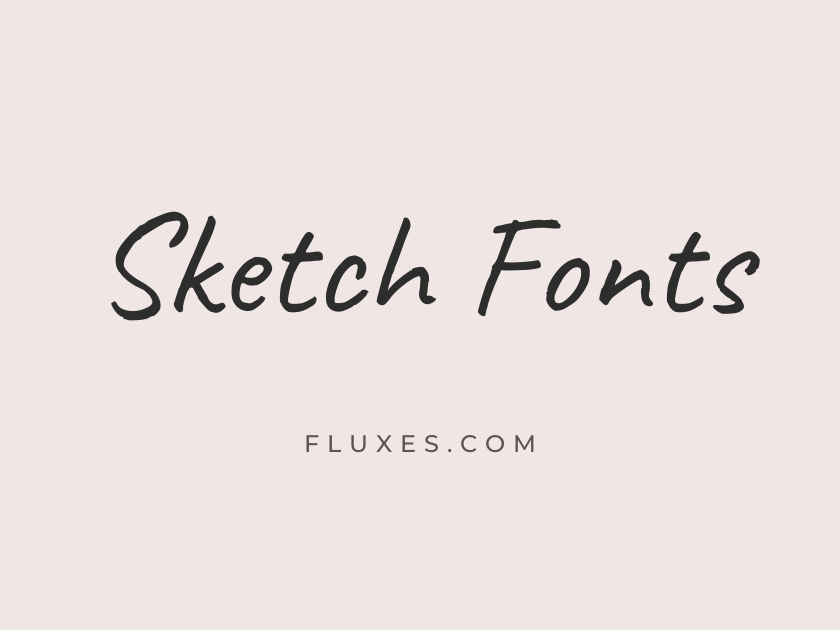
58 Best Sketch Fonts
Sketch fonts capture the energy of a pencil moving fast across paper: the imperfect baselines, the slight wobble in a curve, the sense that an idea was just caught before it disappeared. Designers reach for this style for sketchnote graphics, whiteboard-style explainer videos, kids’ book covers, packaging that wants to feel handmade, and any logo or poster that needs warmth over polish. The good news is that some of the richest hand-drawn, marker, and doodle lettering available anywhere lives on Google Fonts, free to download and use in commercial work.
The fonts here range from tidy handwriting to loose marker scrawl, from felt-tip bounce to fine ballpoint pen, so there is a match whether the project needs a whisper of informality or a full comic-strip shout.
Caveat is the default hand-drawn font for a reason: it reads like genuinely nice handwriting rather than a costume version of it. The letters lean and connect just enough to feel continuous, and the bolder weight holds up surprisingly well in headlines and pull quotes. It pairs cleanly with almost any grotesque sans for body copy, which is why it shows up constantly in branding for cafes, planners, and craft businesses.
Kalam has a rounder, slightly heavier hand than Caveat, closer to a felt marker than a ballpoint. It comes in three weights that all stay legible, making it one of the few sketch-style fonts flexible enough for both a heading and a longer caption.
Patrick Hand looks like the handwriting of someone who takes tidy classroom notes: rounded, even, easy to read at small sizes. It is a dependable choice when a project needs a friendly, informal voice without tipping into chaos.
Patrick Hand SC
This small-caps sibling of Patrick Hand swaps lowercase letters for evenly spaced capitals, which makes it handy for labels, tags, and diagram callouts where a full script would be too loud.
Modeled on the confident, slightly technical handwriting of an architect’s notes, this font is a natural fit for anything blueprint-adjacent: construction branding, DIY tutorials, sketch-style infographics. Its letterforms are upright and structured compared to looser scripts, so it reads as sketchy without feeling careless.
Bouncy, round, and a little childlike, Indie Flower brings warmth to greeting cards, kids’ content, and anything that wants to feel hand-lettered rather than typed. It gets muddy in long paragraphs, so it earns its keep best in short bursts.
This is the font for a thick felt-tip marker dragged across a whiteboard or a moving box. The strokes are heavy and confident, ideal for punchy headlines, sale signage, or any design that wants to shout in a casual, handmade way rather than a corporate one.
Caveat Brush
Take Caveat’s easy rhythm and thicken it with a brush-pen texture and this is the result: expressive, slightly rough-edged, great for titles on sketchnote graphics or hand-lettered social posts. It carries more personality than its thin-stroke cousin but keeps the same natural, unforced slant.
Nanum Brush Script
Nanum Brush Script has visible bristle texture in its strokes, giving it a painterly quality that reads less like handwriting and more like calligraphy done quickly. It works well as an accent font layered over photography or textured backgrounds.
Rock Salt looks scratched rather than written, closer to a worn crayon or dry chalk stick than a pen. It suits grungy, distressed design work, gig posters, and anything referencing skate or punk aesthetics, though it should stay short since it gets hard to read in long lines.
Loose and slightly uneven, Sriracha has the feel of a marker label scrawled in a hurry, which makes it a fun fit for food packaging, condiment branding, and casual menu headers.
Comforter
Comforter has a relaxed, looping quality reminiscent of a note left on the kitchen counter. It suits personal, homespun branding better than anything corporate.
Comforter Brush
This brush variant thickens Comforter’s loops with a soft marker texture, giving it more visual weight for use in headlines rather than the thin, delicate original.
Gochi Hand has a slightly wobbly, endearing charm, like handwriting from someone concentrating hard on staying inside the lines. Its small x-height and light strokes mean it is best kept to short headlines and titles.
If a design leans playful and childlike, stick with rounder options like Chewy, Mali, or Bubblegum Sans. For something closer to a designer’s own notebook, Architects Daughter, Neucha, or Handlee read more grounded and professional.
Sketch fonts thrive on imperfection, and that is exactly why they work so well for design that wants to feel human. With this many free, genuinely distinct options on Google Fonts, there is little reason to reach for a generic script when something this expressive and easy to download is already within reach.